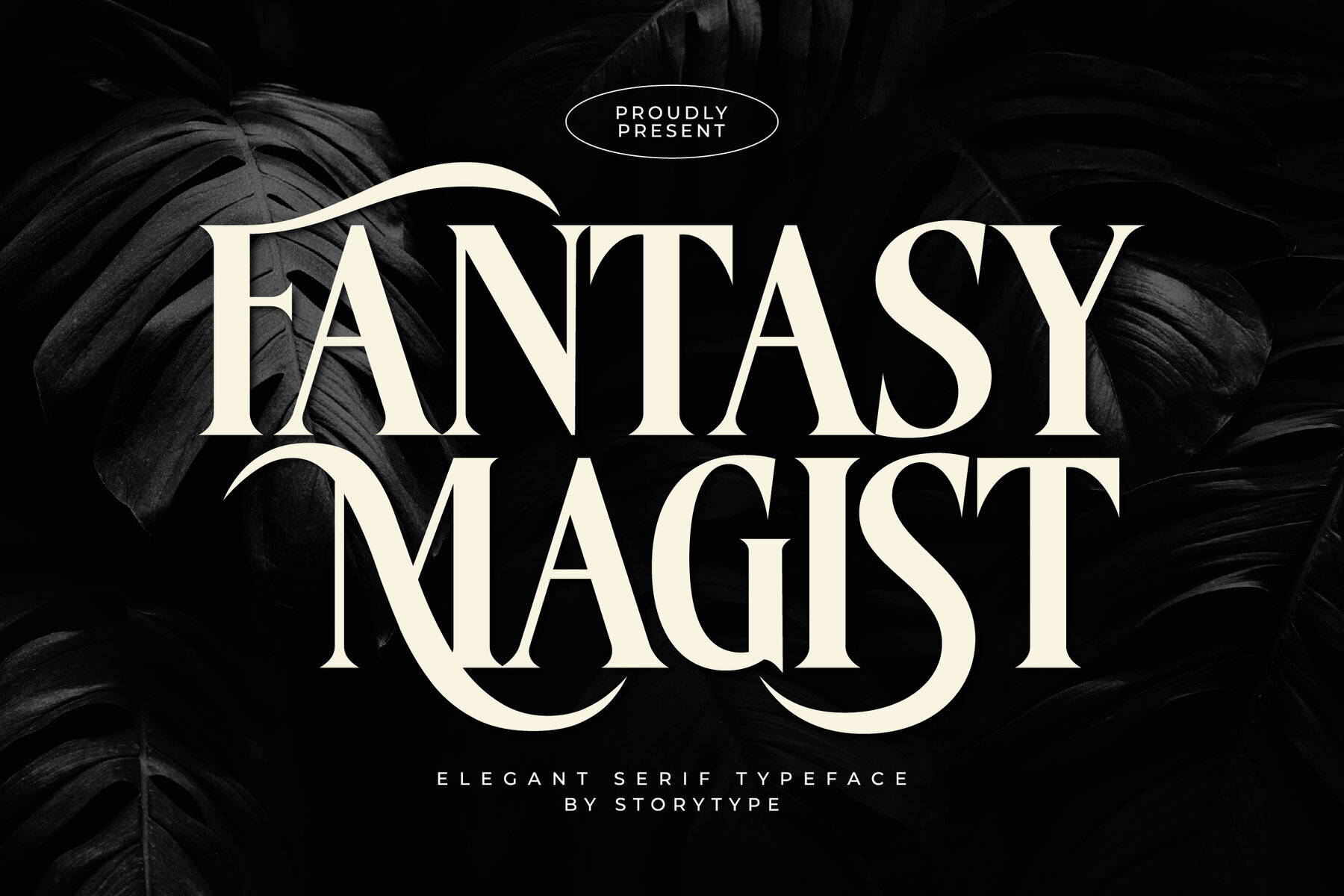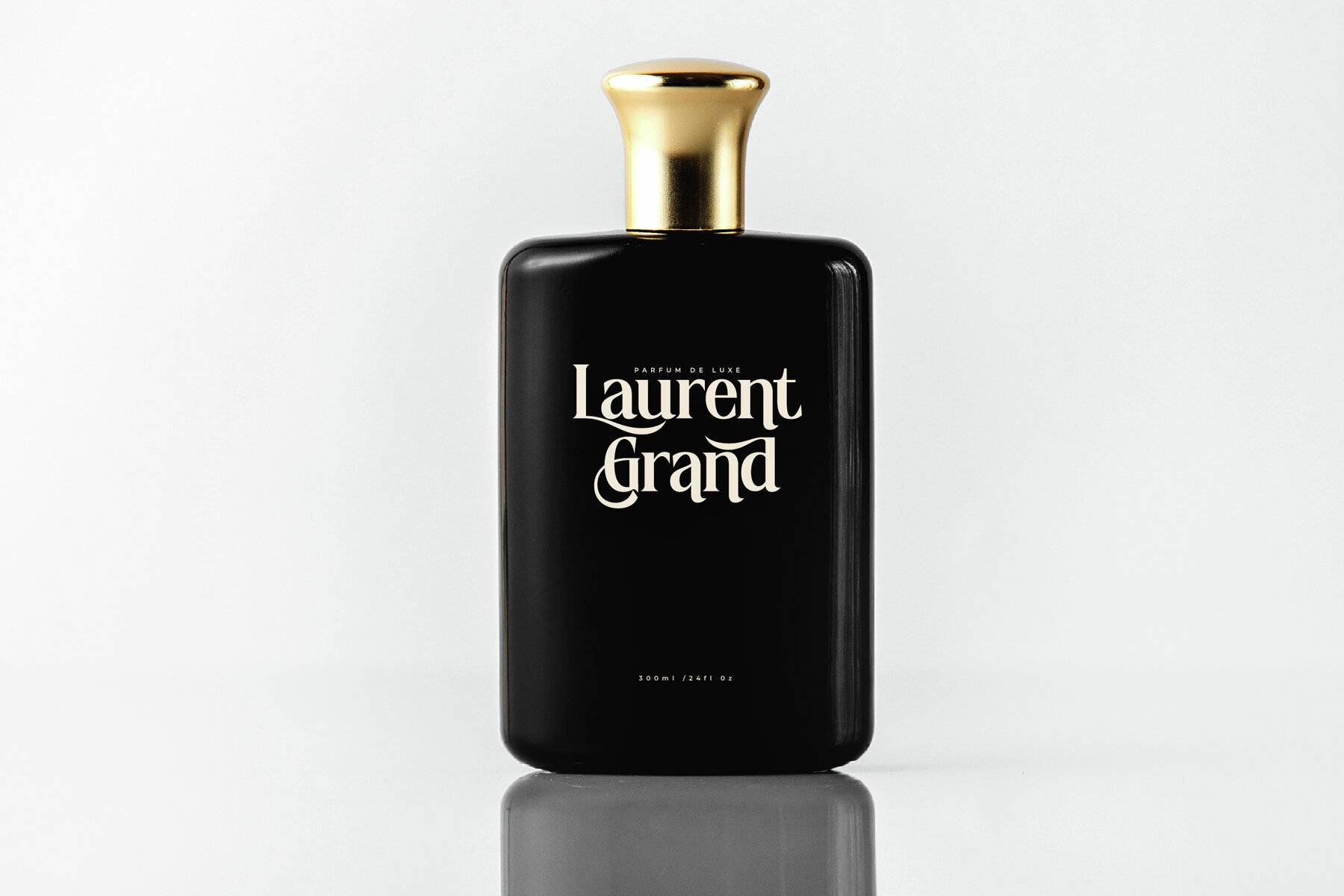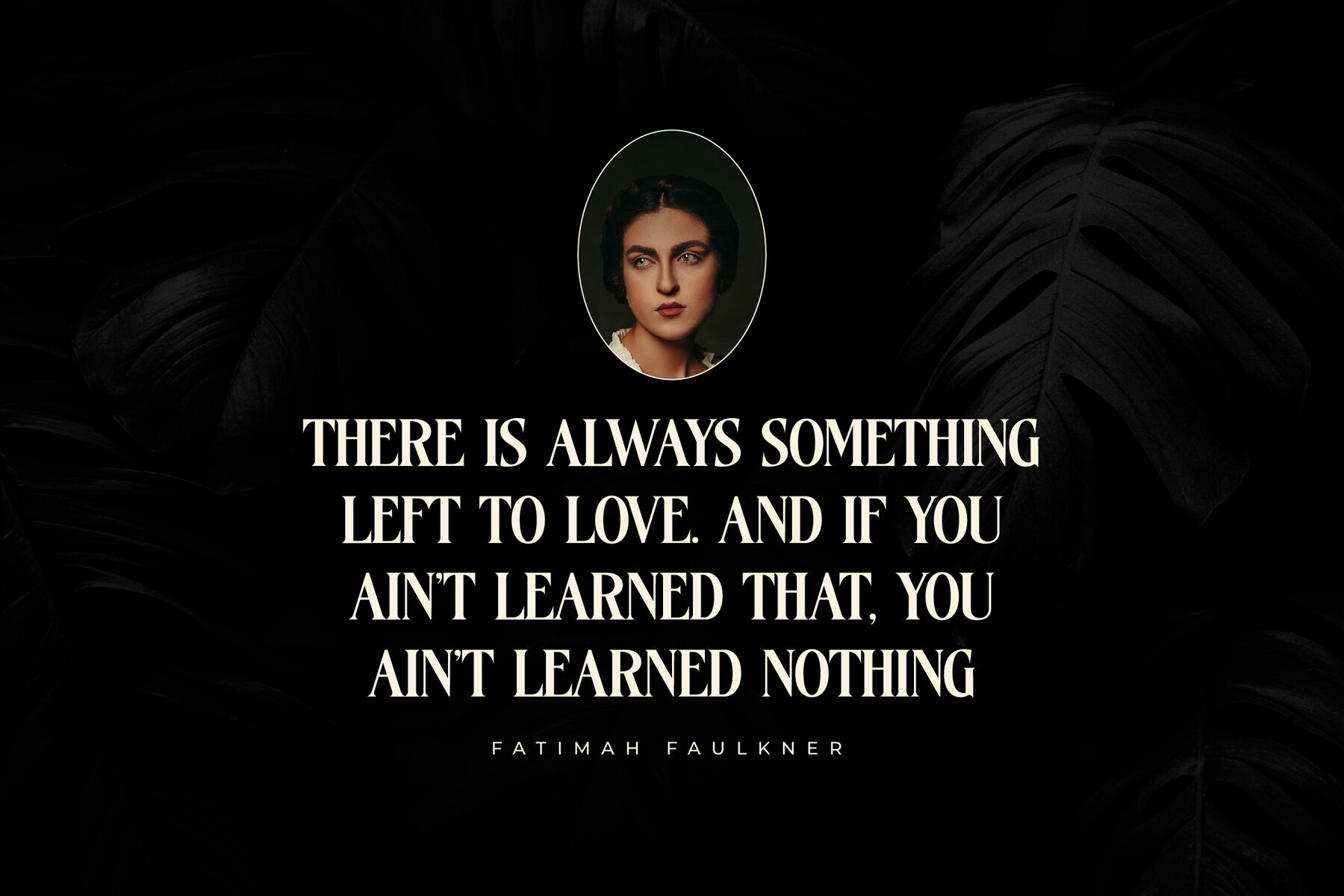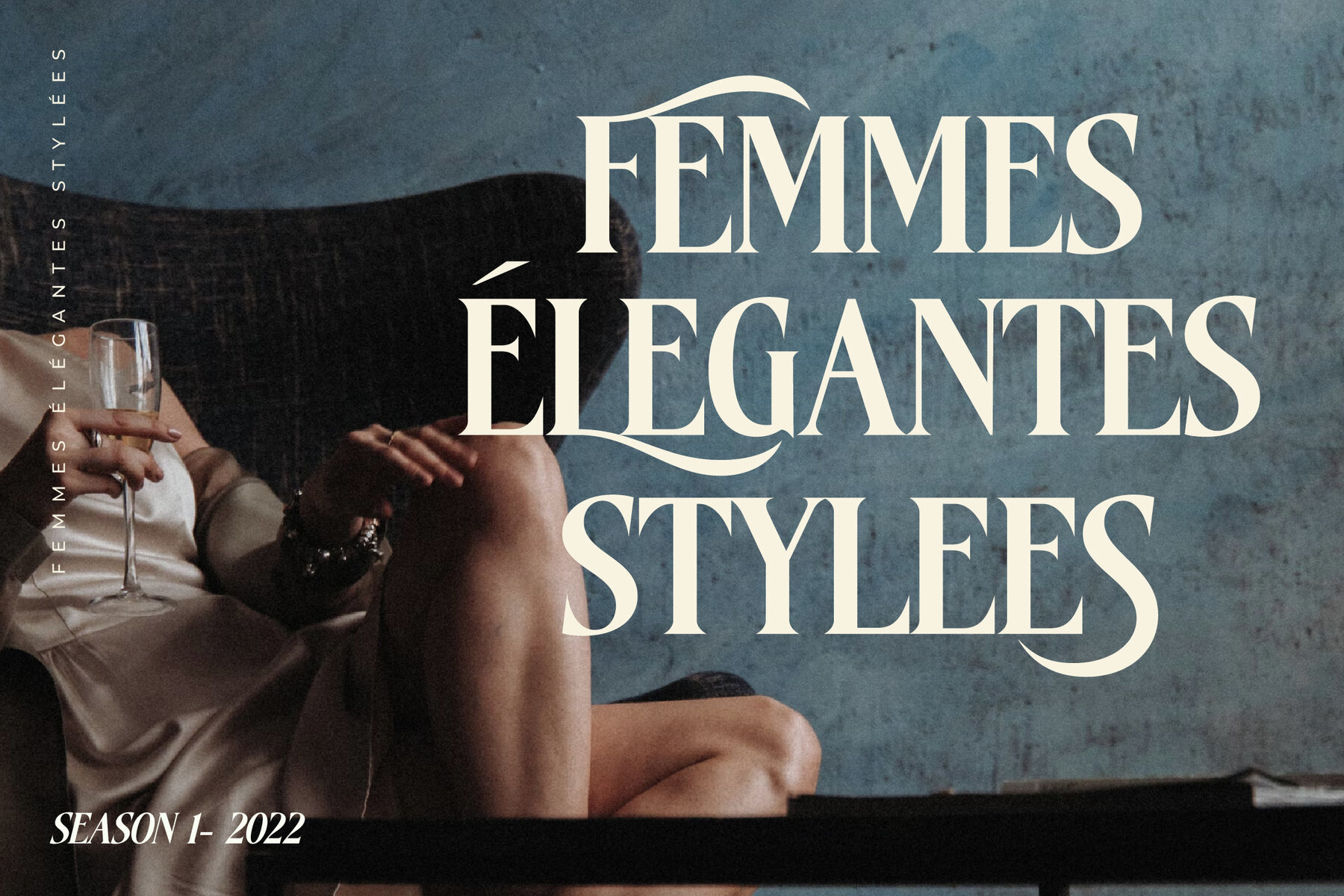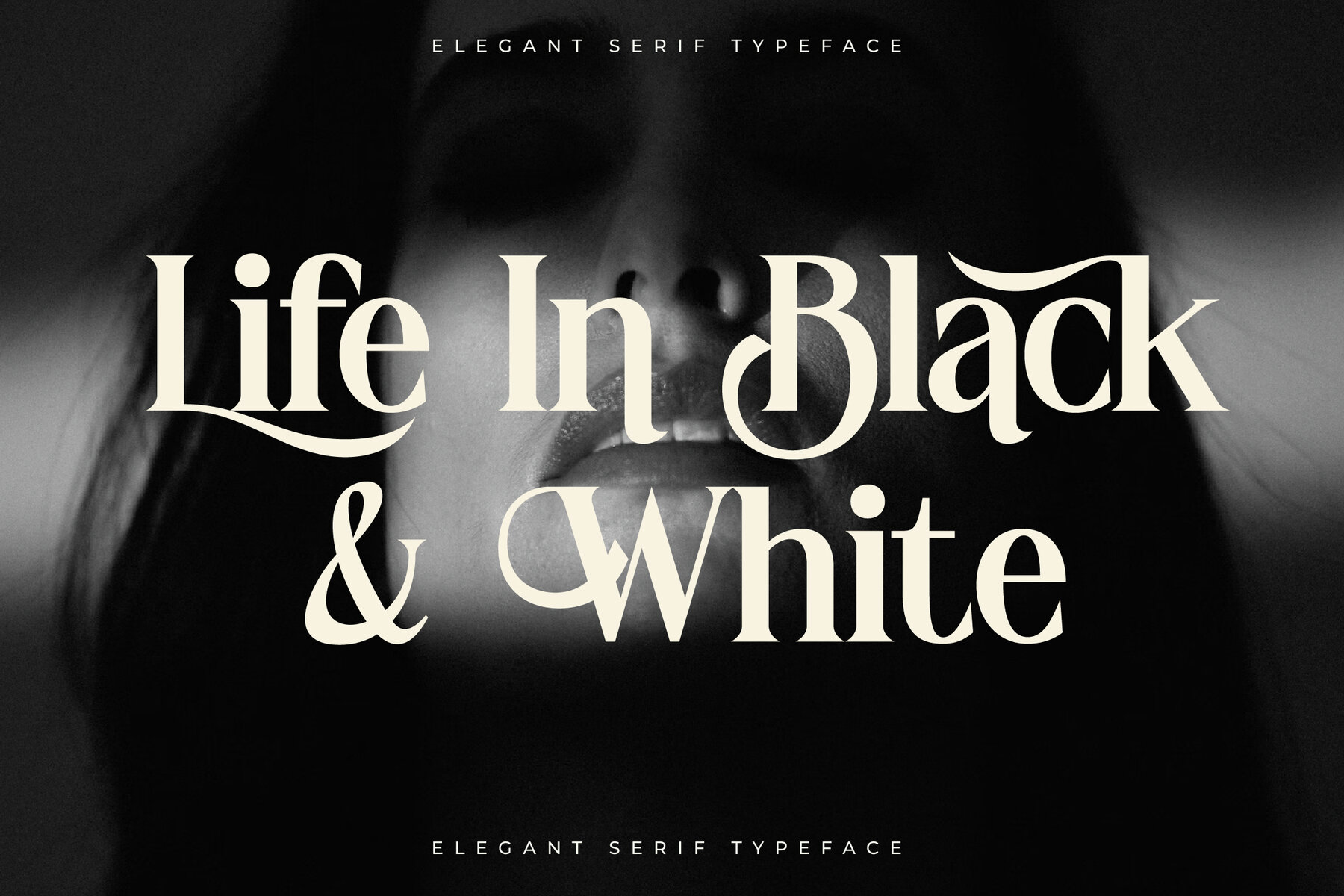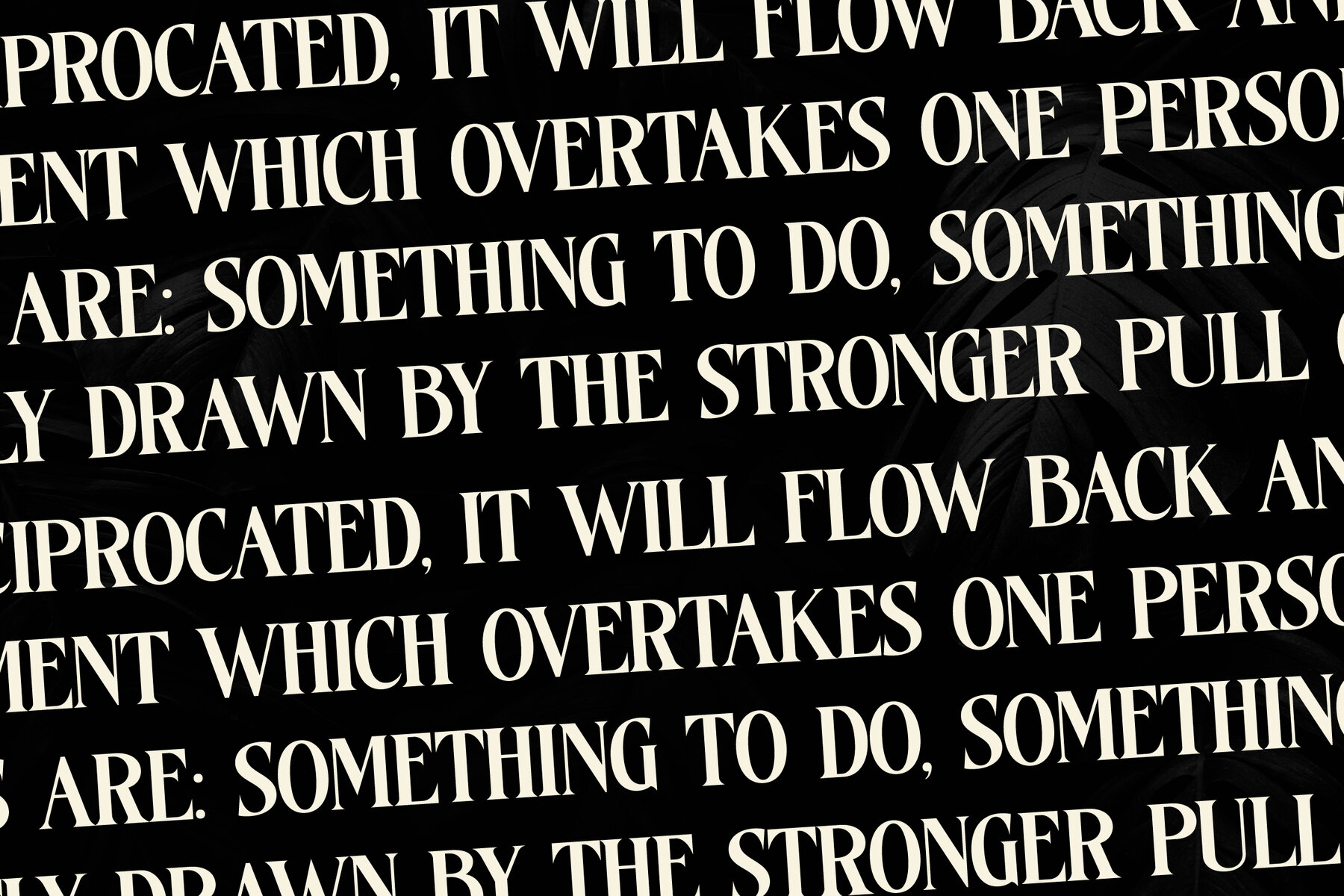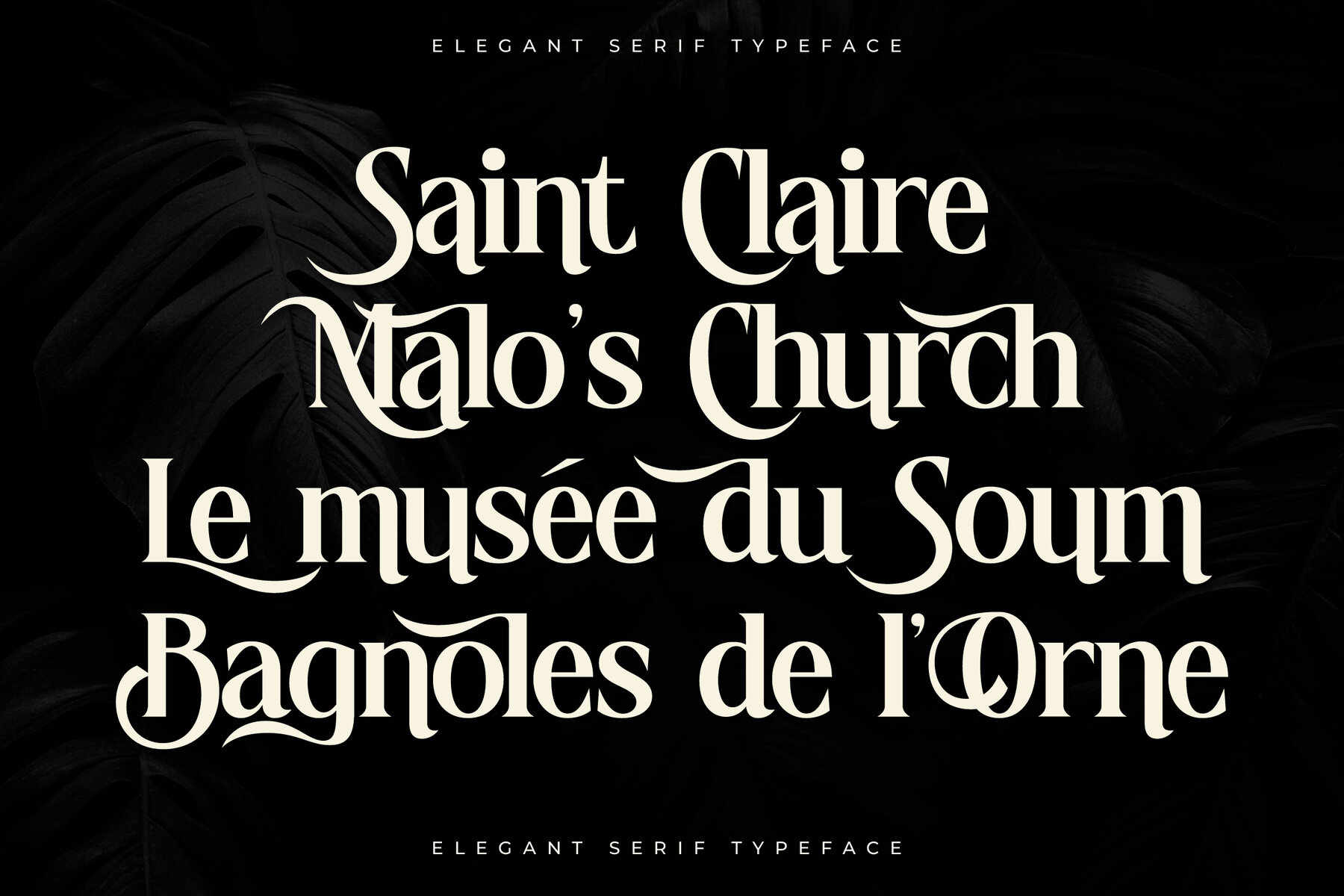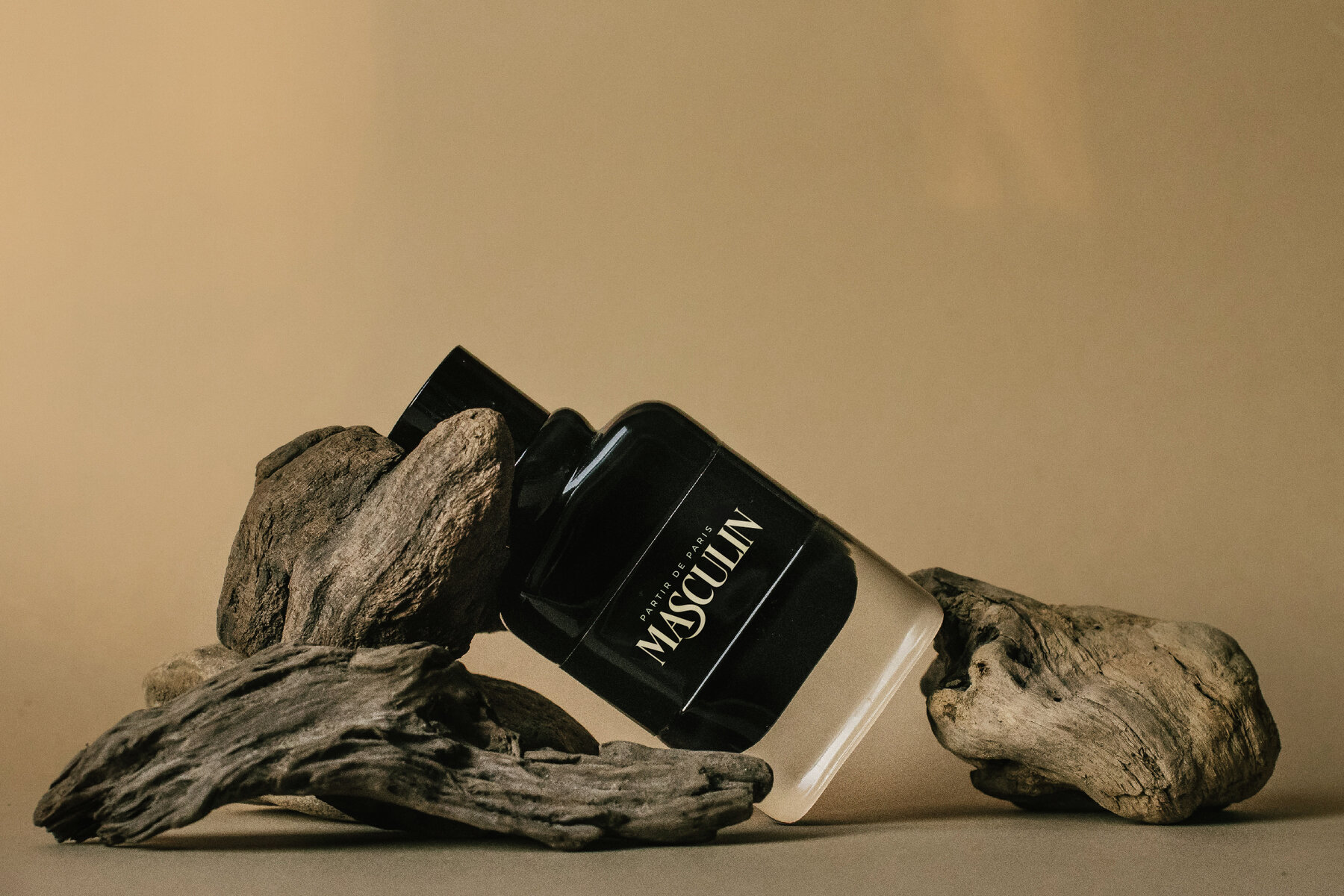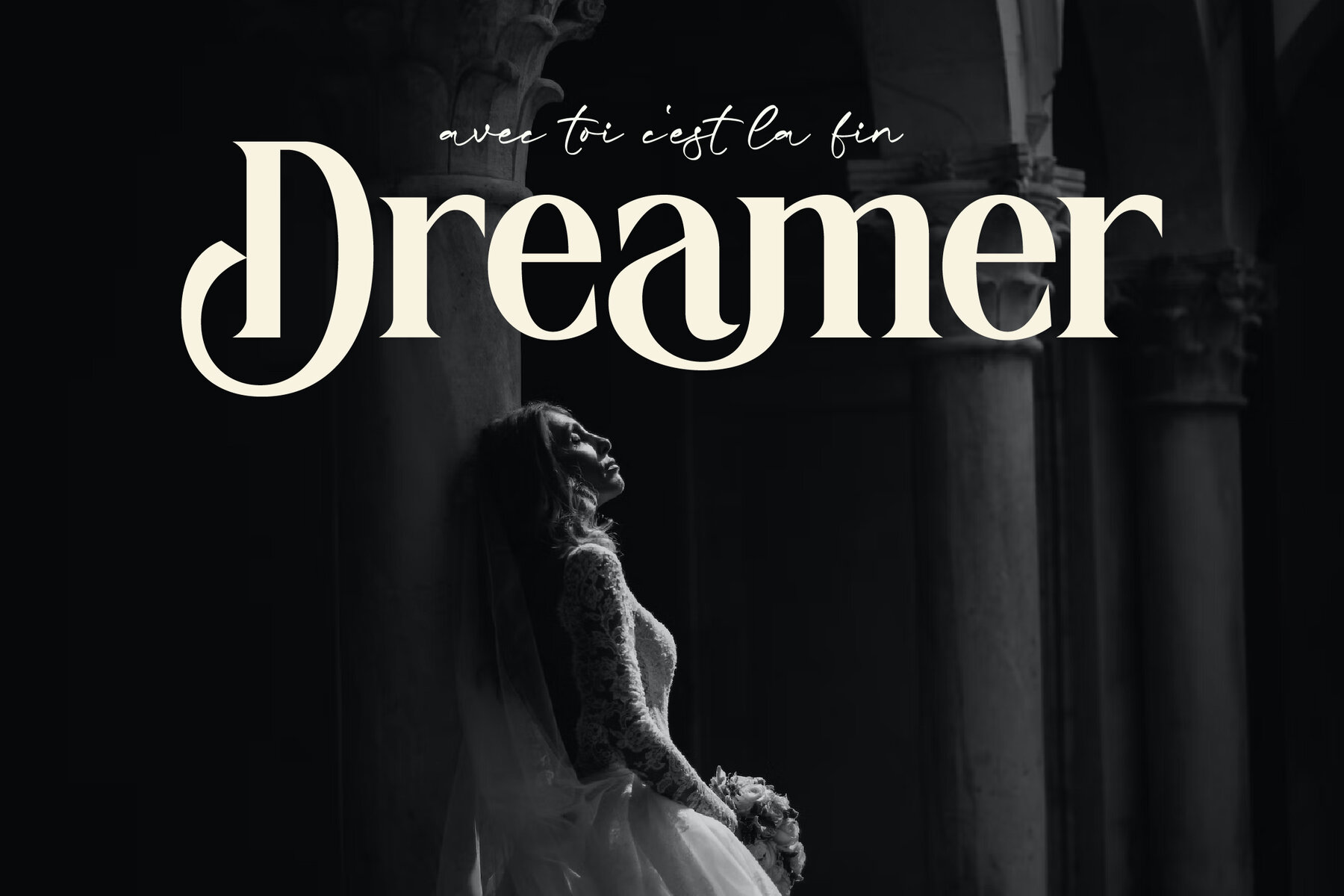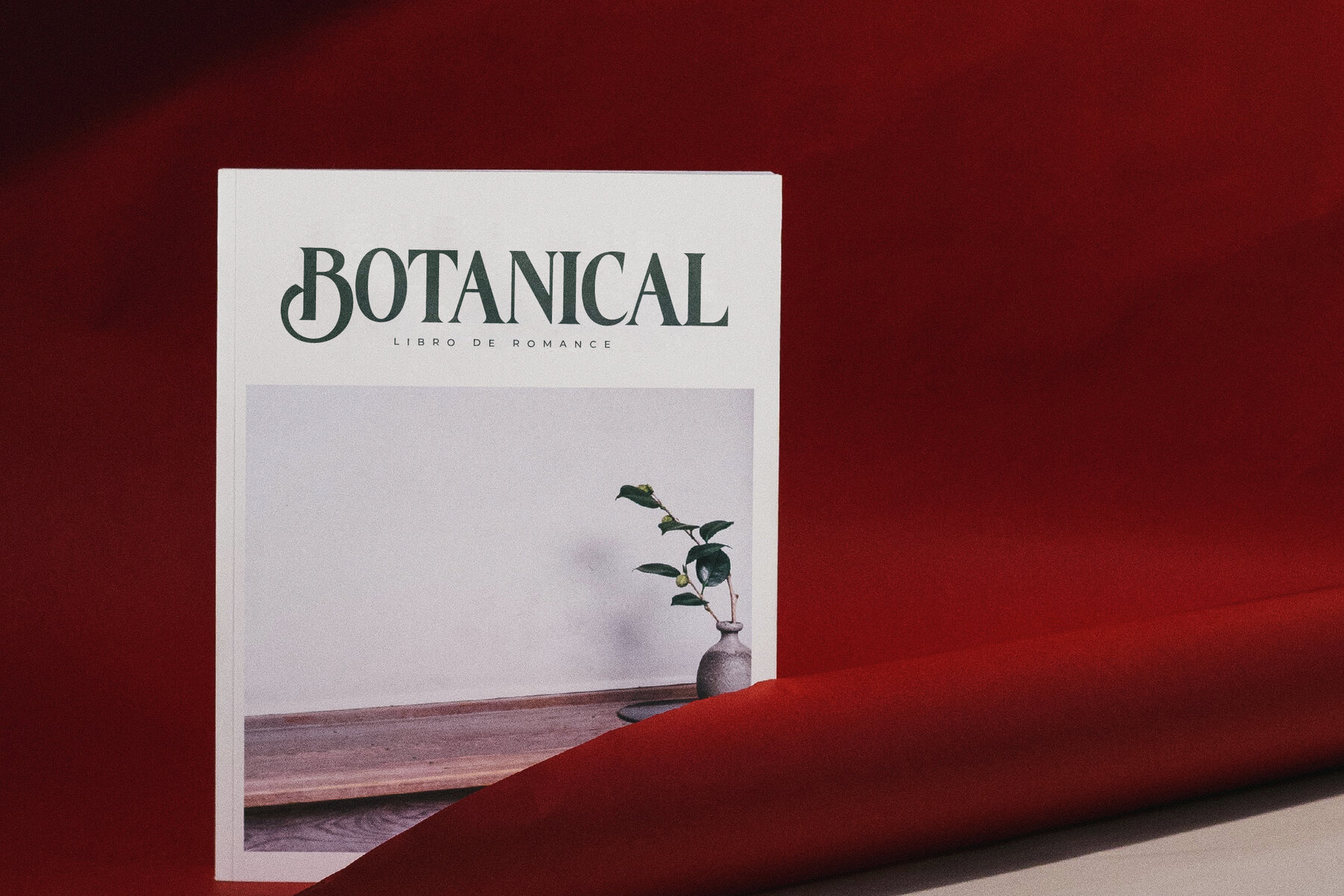
FANTASY MAGIST Font
Introducing the Fantasy Magist typeface, a refined blend of classic and modern serif styles. This distinctive typeface is the ideal choice for crafting elegant logos, captivating book or movie titles, and high-end fashion branding. Its unique character makes it equally suitable for magazine layouts, clothing designs, and thoughtful quotes.Fantasy Magist Typeface